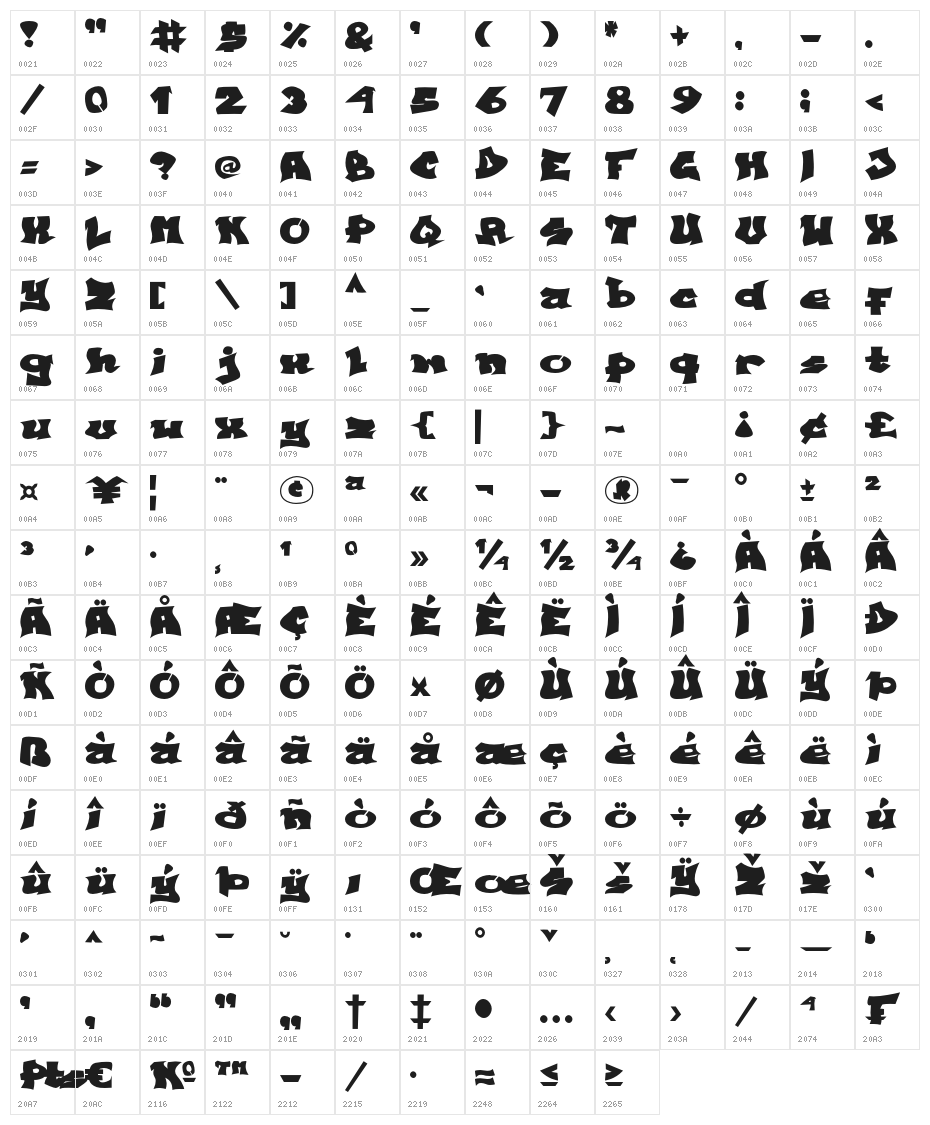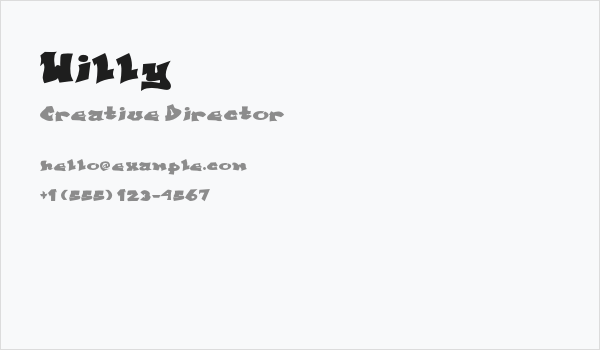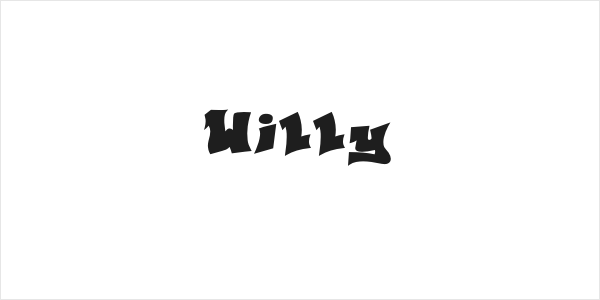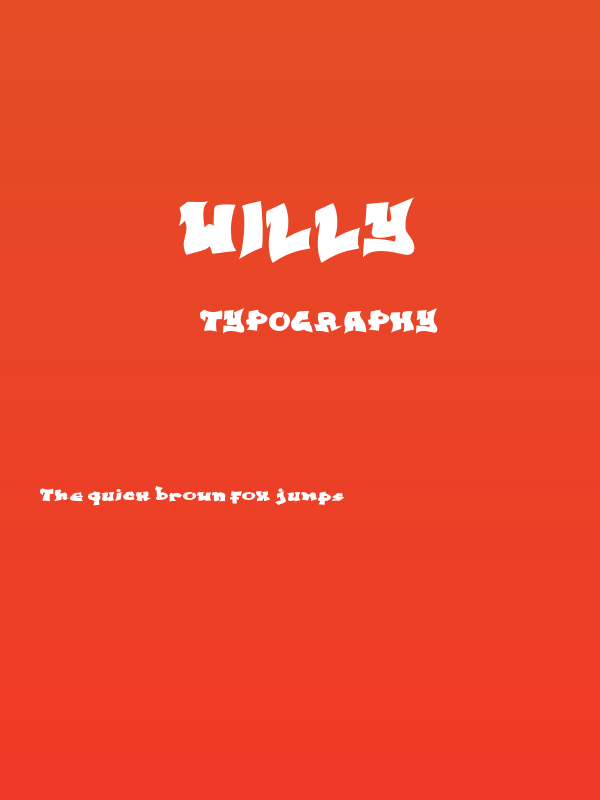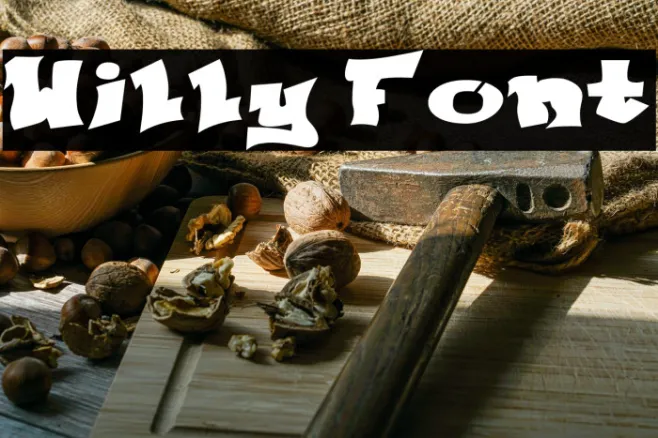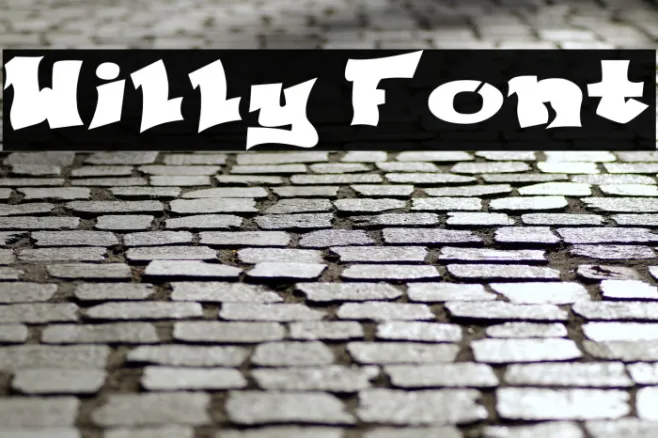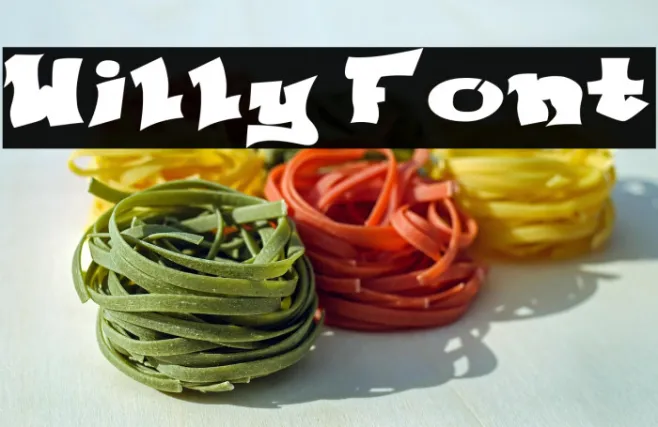
Willy Font
Willy Description
This font features a bold and dynamic style with sharp, angular edges and a slightly aggressive appearance. The characters are heavily stylized, giving them a unique and eye-catching look. The uppercase and lowercase letters maintain a consistent design, with exaggerated serifs and a strong presence. The numbers and special characters follow the same bold and distinctive style, making the font suitable for attention-grabbing designs. The overall appearance is reminiscent of graffiti or street art, with a modern twist.
| Proposed Projects | Ideal for street art designs, edgy branding, posters, and music album covers. |